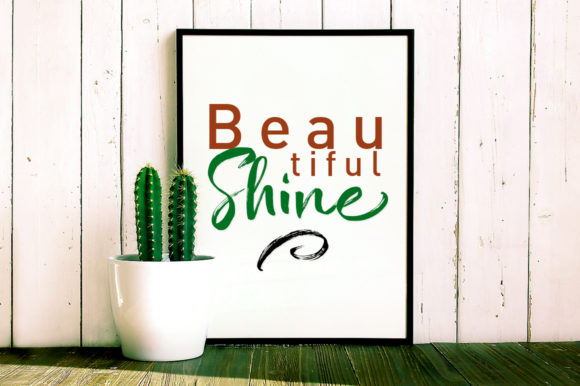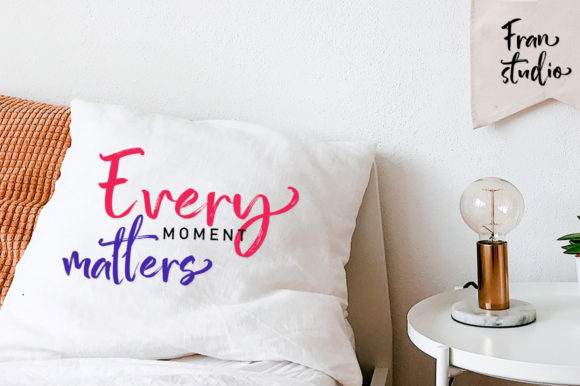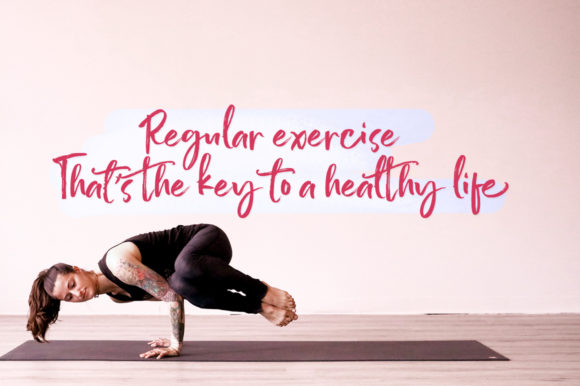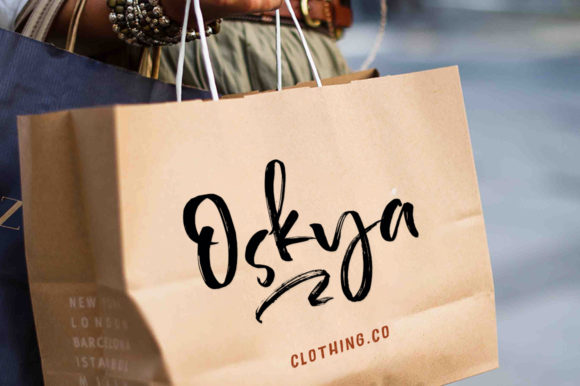
The Designer’s Dream Font: Antero
Have you ever been in the middle of a design project, and suddenly, you just can’t seem to find the right font? I know I have. It was a beautiful wedding invitation design project, and I was struggling to find a font that captured the elegance and playfulness my client was looking for. That’s when I stumbled upon Antero, a gorgeous handwritten font that instantly stole my heart. In this article, I’ll share my experience with Antero, its features, and how you can make the most of it in your designs.
First Impressions: What I Love About Antero
Antero is a very unique handwritten font, created with the help of an outstanding brush pen. Here are some things I absolutely love about it:
- ✨ PUA encoded: This means you can access all of the glyphs and swashes with ease, giving you endless possibilities for customization.
- ✅ Varying baseline: Antero’s unique baseline adds a touch of organic feel to your designs, making them stand out from the crowd.
- ✅ Smooth lines and gorgeous glyphs: The font features smooth, flowing lines and beautiful glyphs that will elevate your designs to the next level.
- ✅ Stunning alternates: With Antero, you get access to stunning alternates that will add variety and interest to your designs.
While Antero is an amazing font, there are a few quirks to keep in mind:
- ⚠️ Some characters may require manual kerning: As with any font, you may need to adjust the kerning of certain characters to get the perfect look.
- 🤔 Not suitable for body text: Antero is a display font, and as such, it’s best used for headings and titles rather than body text.
The Story Behind Antero
Antero was designed by a talented typographer who’s passionate about creating unique, handwritten fonts. The font was inspired by the beauty of handwritten scripts and the versatility of modern typography. With Antero, the designer aimed to create a font that’s both elegant and playful, perfect for a wide range of design projects.
| What is Antero? | Antero is a unique handwritten font, created with the help of an outstanding brush pen. |
| Is Antero suitable for body text? | No, Antero is a display font and is best used for headings and titles rather than body text. |